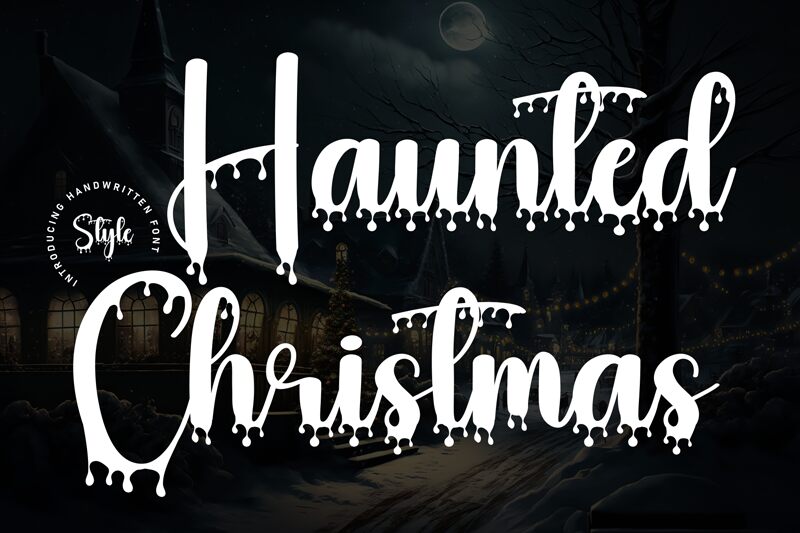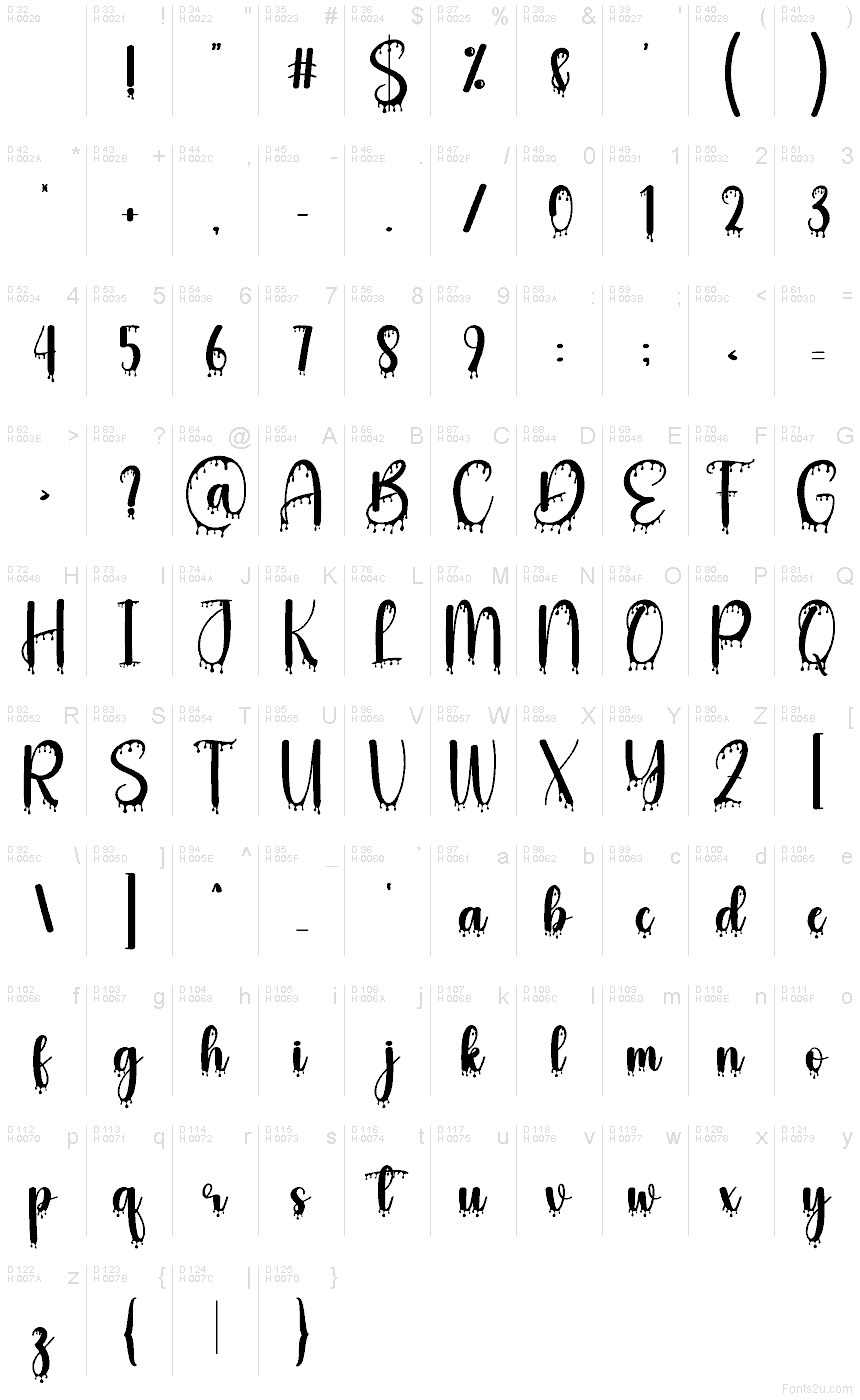
Haunted Christmas
Haunted Christmas font by Scratchones is a free Halloween holiday display font. Built around the playful clash of inky drips and icy tips, its scratchy strokes look half haunted house, half frosted window. The letters feel hand-brushed and a little gooey, with dangling “icicles” that add eerie motion without losing readability—great when you need spooky energy that still scans fast.
Using Haunted Christmas, headlines snap with a mischievous chill on party invitations, seasonal event posters, haunted market signage, YouTube thumbnails, game titles, and treat bag labels. This free font shines at larger sizes; for supporting text, pair it with a clean, unfussy sans to keep the spotlight on those dripping winter flourishes.